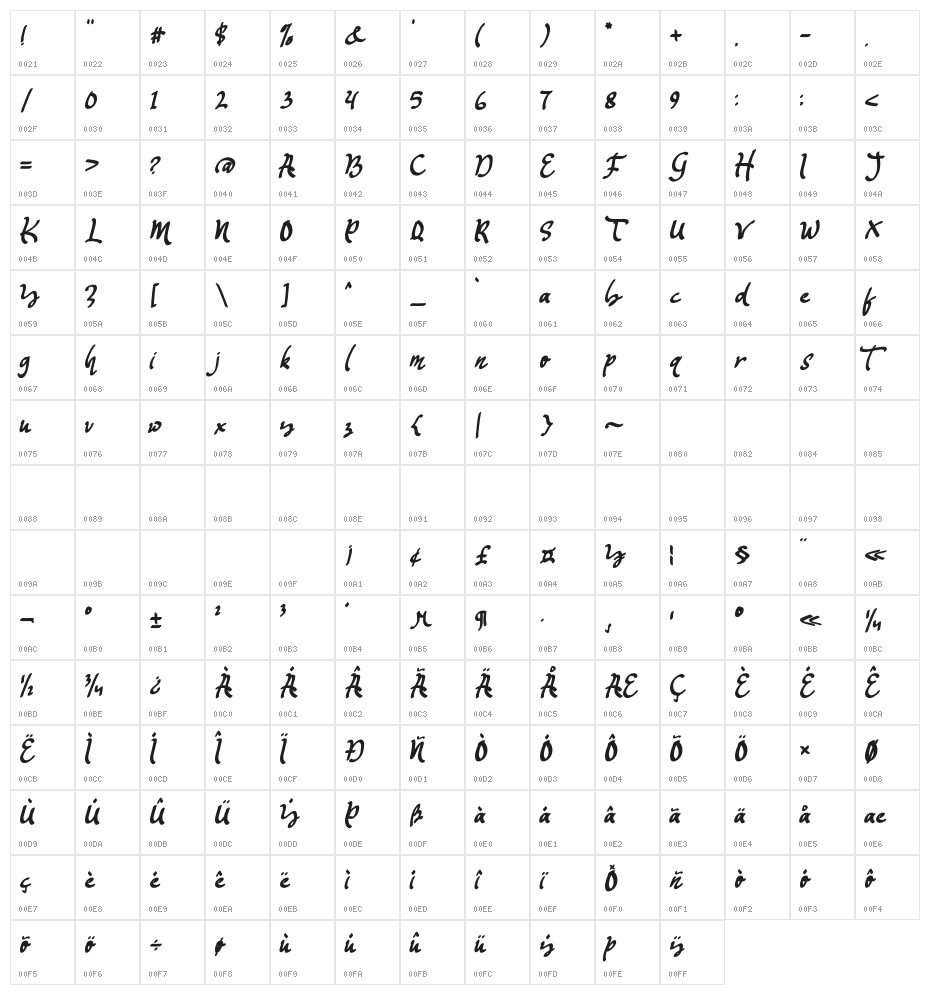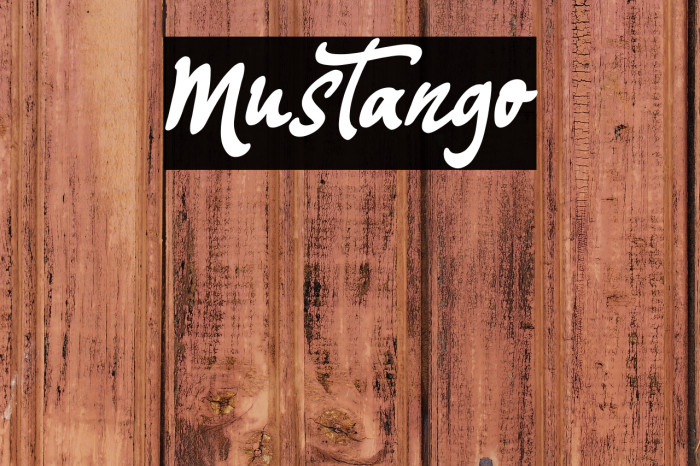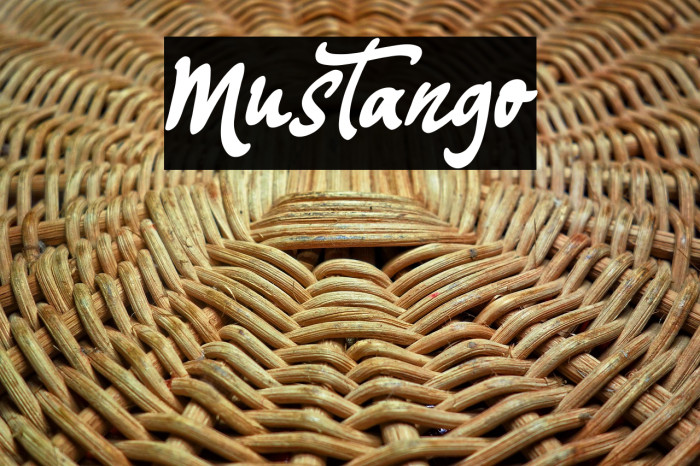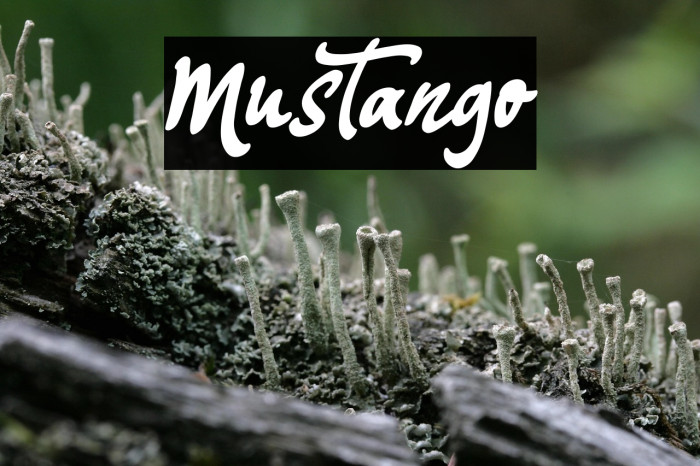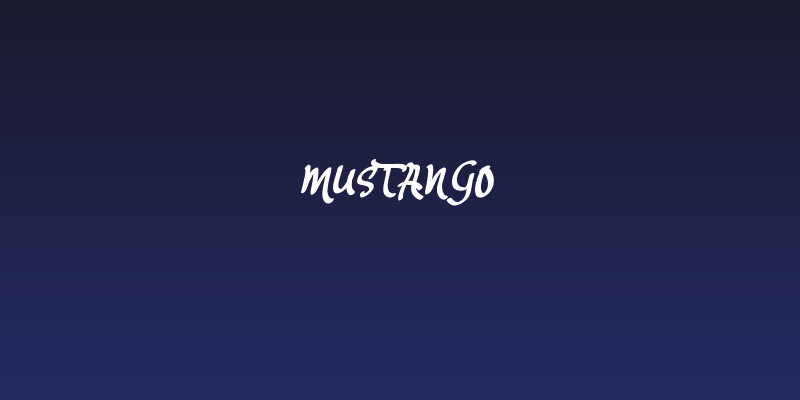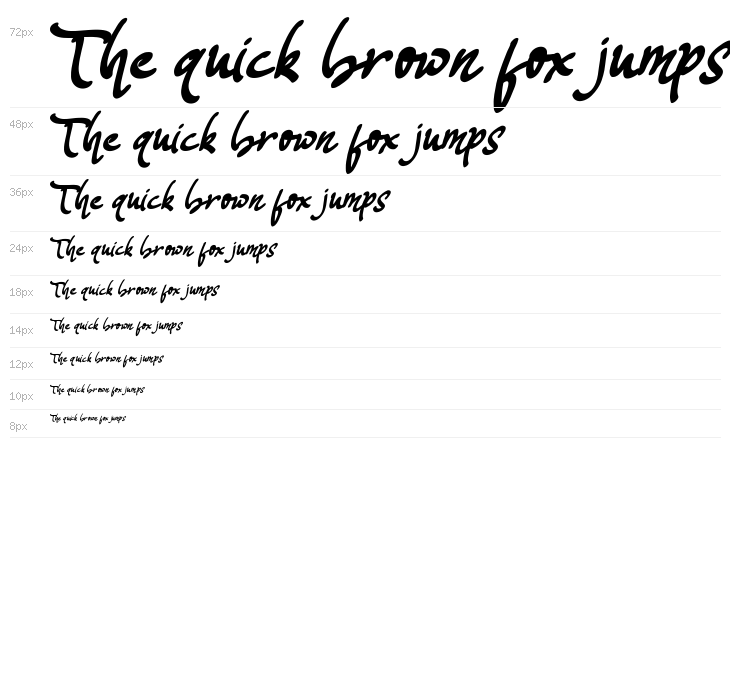
Mustango Font
Mustango Description
This font features a bold and dynamic script style with a handwritten appearance. The letters are fluid and connected, giving a sense of movement and energy. The uppercase characters are slightly more structured, while the lowercase letters exhibit a more casual and free-flowing form. The numerals and special characters maintain the same lively and expressive quality, making the font versatile for various design needs. Its bold strokes and playful curves make it stand out, suitable for projects that require a personal and artistic touch.
| Proposed Projects | Ideal for branding, invitations, greeting cards, and artistic projects that require a personal touch. |